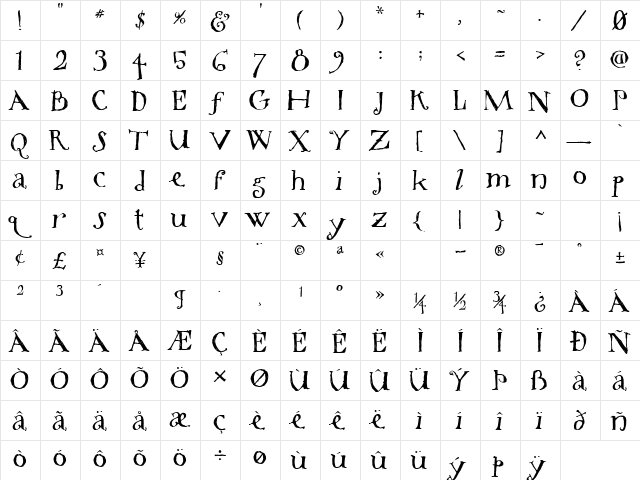
Tree Boxelder Regular Font Preview
Tree Boxelder Regular
Design Context for Tree Boxelder Typeface
Tree Boxelder is a composed and adaptable typeface that performs quietly and consistently across a wide range of design contexts.